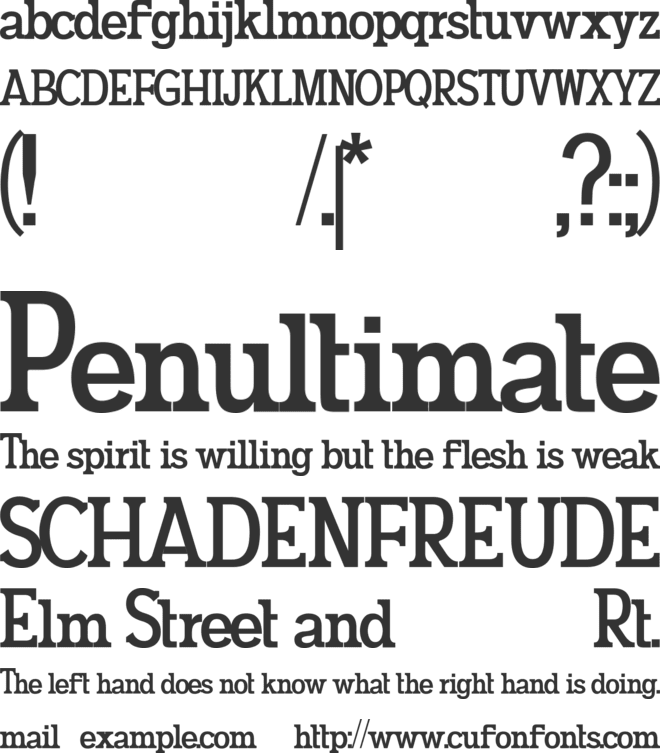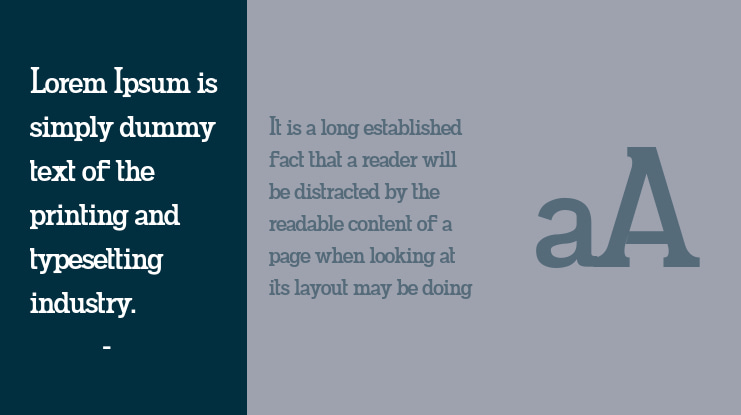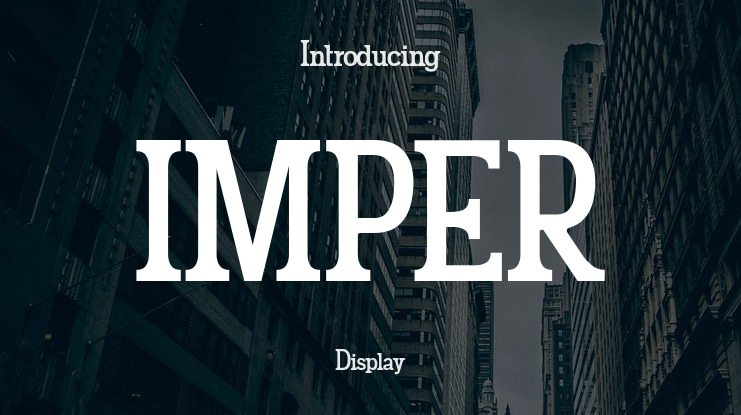
IMPER Font
🎨 Font Name: IMPER by Minimalist Art Studio
🎨 Font Description: IMPER is a classic serif with multilingual support and refined details, ideal for editorial, heritage branding, and elegant packaging.
βœ” Complete Latin set + multilingual diacritics
βœ” Alternates, stylistic sets & ligatures
βœ” Numbers, small caps, and extended punctuation
βœ” Bonus italics and family styles